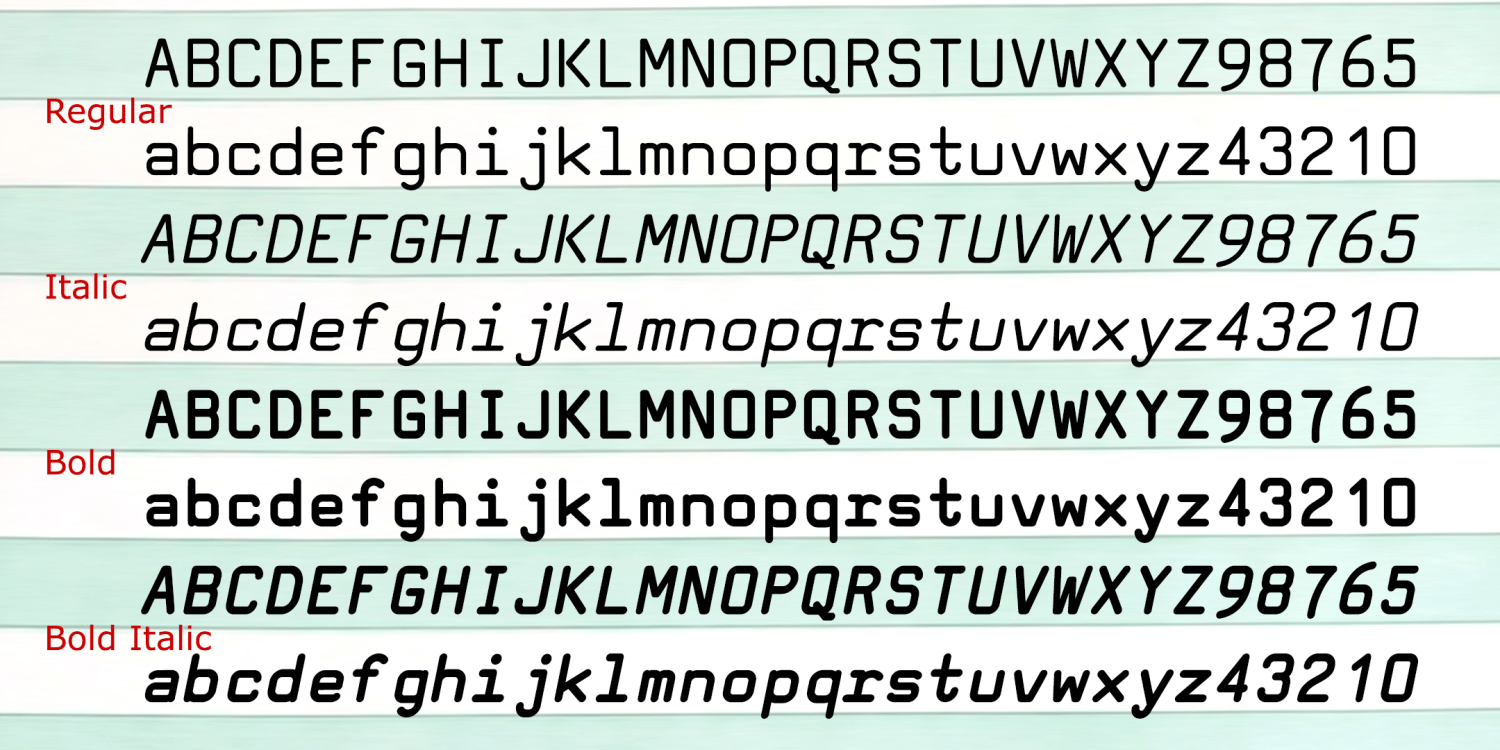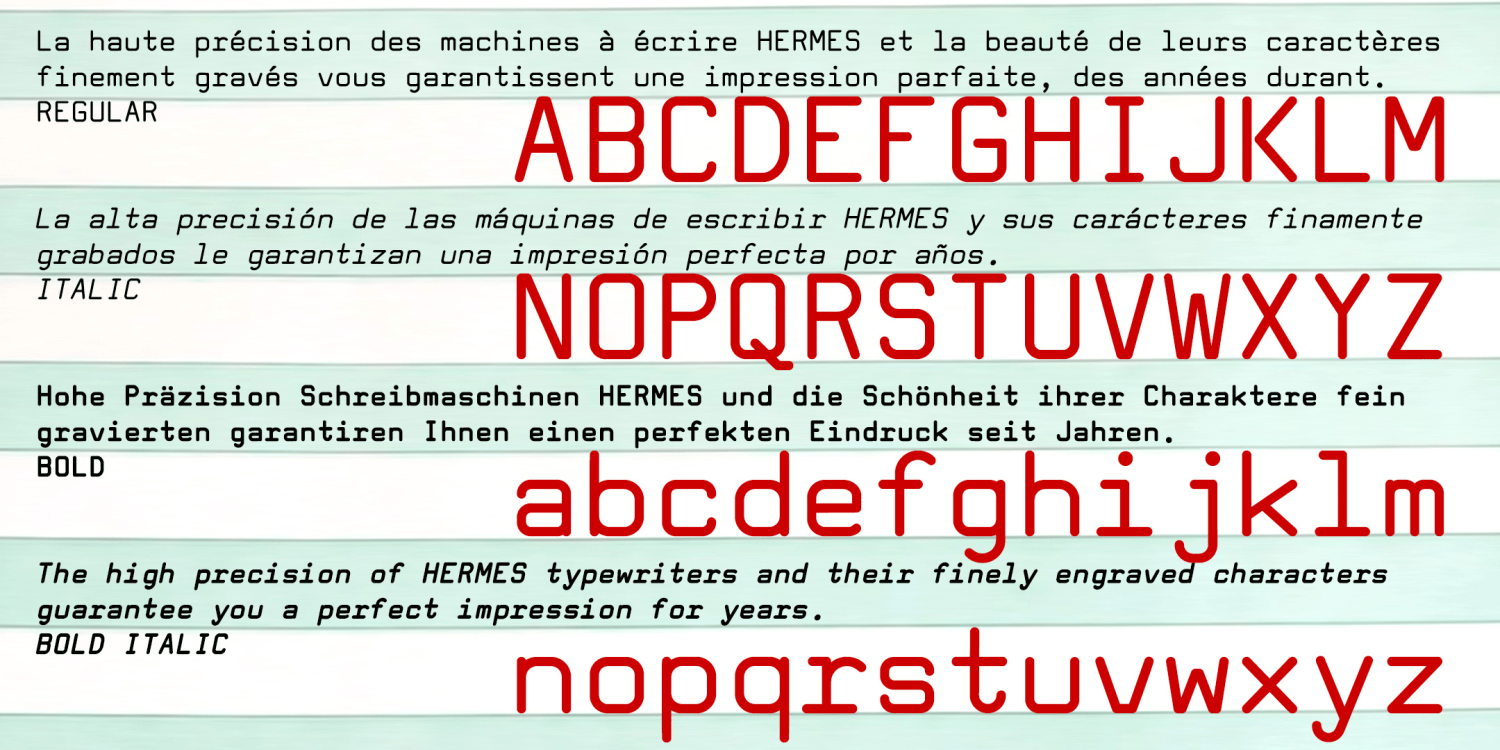
Tech Elite
TECH ELITE is a set of 4 fonts (Regular, Oblique, Bold, Bold oblique) inspired by a classic Swiss typewriter, the Hermes 3000. A stylish alternative to Courier, this monospaced, monoweight, sans serif font is classic midcentury modern–square and cool–at…